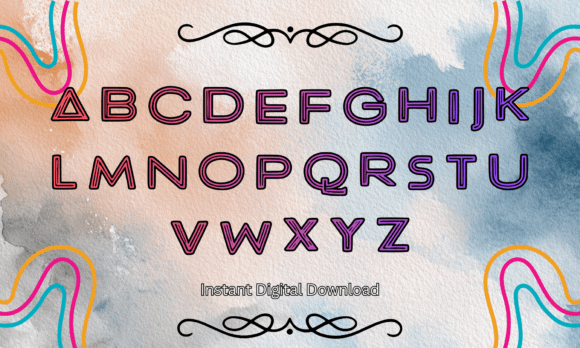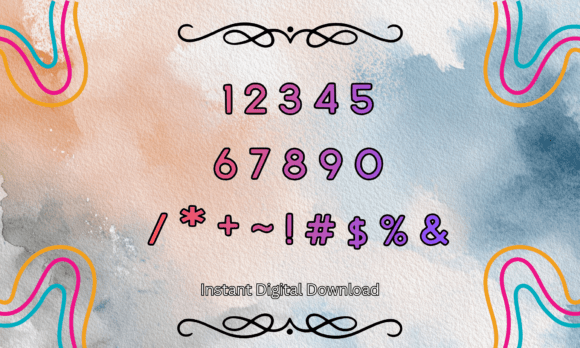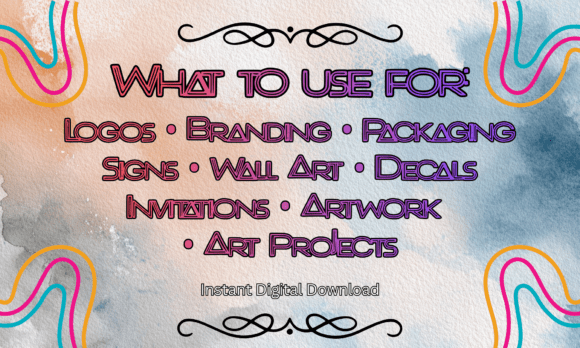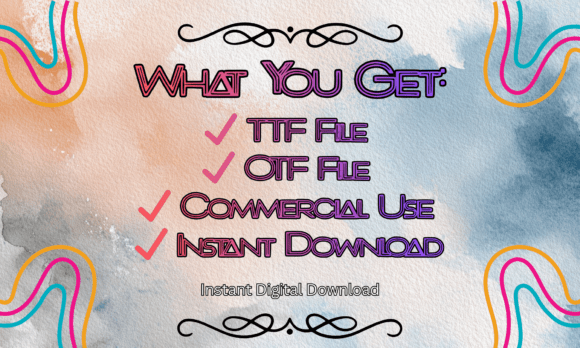
Introducing the Art Deco Rainbow Outline Font: Elevate Your Designs with Vintage Flair and Modern Twist
Are you looking for a font that can add a touch of classic elegance and modern playfulness to your designs? Look no further than the Art Deco Rainbow Outline Font! This stunning font is inspired by the geometric patterns and clean lines of Art Deco, with a bold and colorful twist that is sure to make your designs pop.
What is Art Deco?
Art Deco is a design style that originated in the 1920s and flourished until the 1940s. Characterized by its use of geometric shapes, metallic materials, and bold colors, Art Deco was a celebration of modernity and luxury. The style influenced a wide range of design fields, from architecture and fashion to graphic design and typography.
The Art Deco Rainbow Outline Font: A Modern Take on a Classic Style
The Art Deco Rainbow Outline Font is a modern interpretation of the classic Art Deco style, with a playful and colorful twist. The font features clean lines, layered outlines, and letterforms that are ready to be filled with your favorite colors. The result is a font that is both sleek and retro, perfect for designers and crafters who want to add a touch of vintage flair to their work.
Key Features of the Art Deco Rainbow Outline Font
- Uppercase and Lowercase Letters: The font includes both uppercase and lowercase letters, making it perfect for a wide range of design projects.
- Numbers and Symbols: The font also includes numbers, common symbols, and punctuation marks, giving you everything you need to create professional-looking designs.
- Layered Outlines: The font’s layered outlines make it easy to create custom colors and effects, adding depth and dimension to your designs.
- Clean Lines: The font’s clean lines and geometric shapes give it a sleek and modern look that’s perfect for a wide range of design applications.
The Art Deco Rainbow Outline Font is perfect for a wide range of design projects, including:
- Logos and Branding: Add a touch of vintage flair to your logos and branding materials with this unique and eye-catching font.
- Packaging Design: Use the font to create custom packaging that stands out on store shelves.
- Signs and Decals: Create eye-catching signs and decals with this bold and colorful font.
- Wall Art: Use the font to create stunning wall art that adds a touch of personality to any room.
- Invitations: Add a touch of elegance and sophistication to your invitations with this beautiful font.
- Artwork and Posters: Use the font to create stunning artwork and posters that showcase your creativity and style.
- Cricut and Silhouette Projects: The font is perfect for Cricut and Silhouette projects, including custom vinyl decals, iron-on designs, and more.
- Digital and Print Designs: Use the font in both digital and print designs, including social media graphics, brochures, and more.
The Art Deco Rainbow Outline Font is a unique and versatile font that is perfect for designers and crafters who want to add a touch of vintage flair to their work. With its clean lines, layered outlines, and playful color-ready letterforms, this font is sure to make your designs stand out. Whether you’re creating logos, wall art, packaging, or invitations, this font is the perfect choice. So why wait? Download the Art Deco Rainbow Outline Font today and start creating stunning designs that showcase your creativity and style!